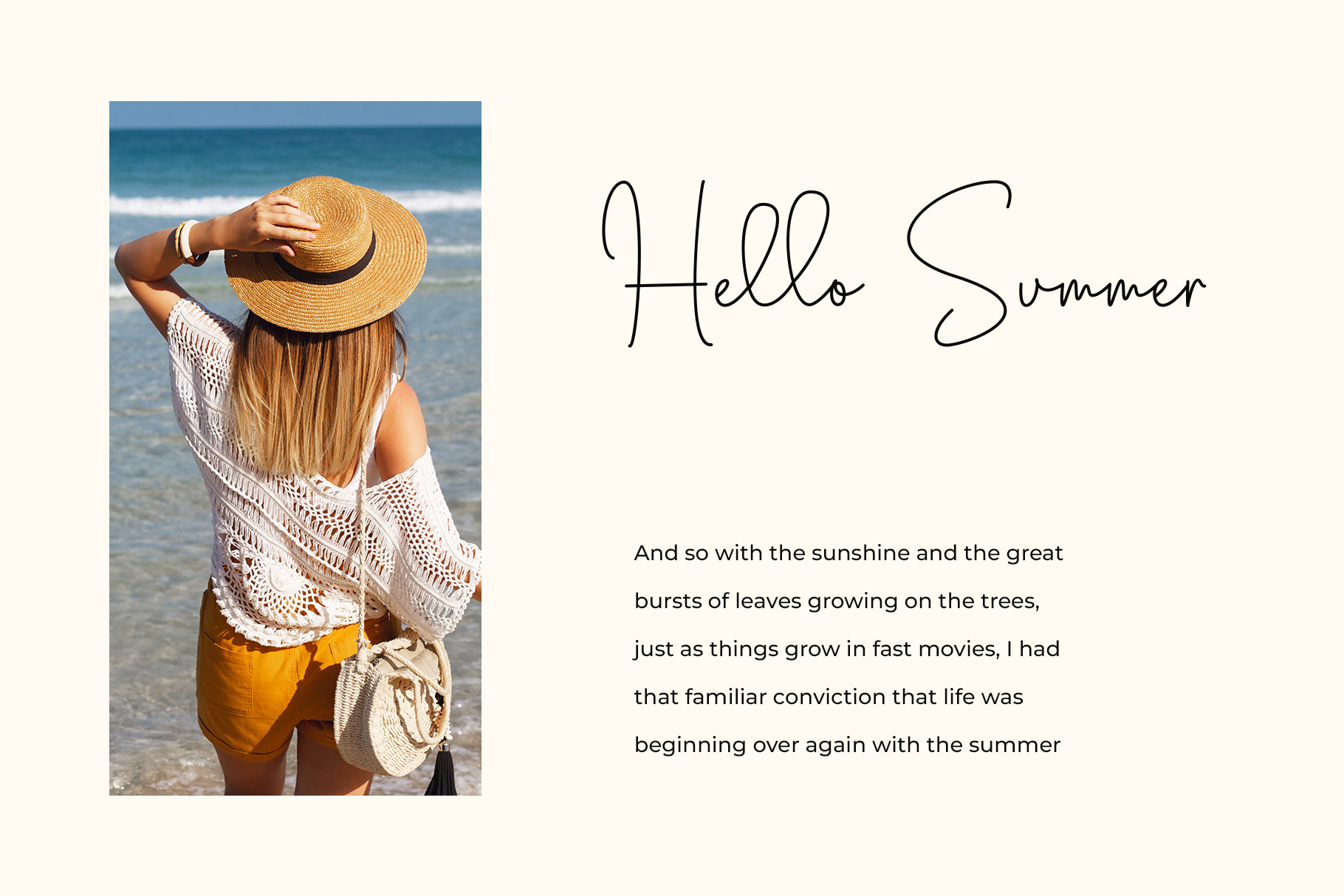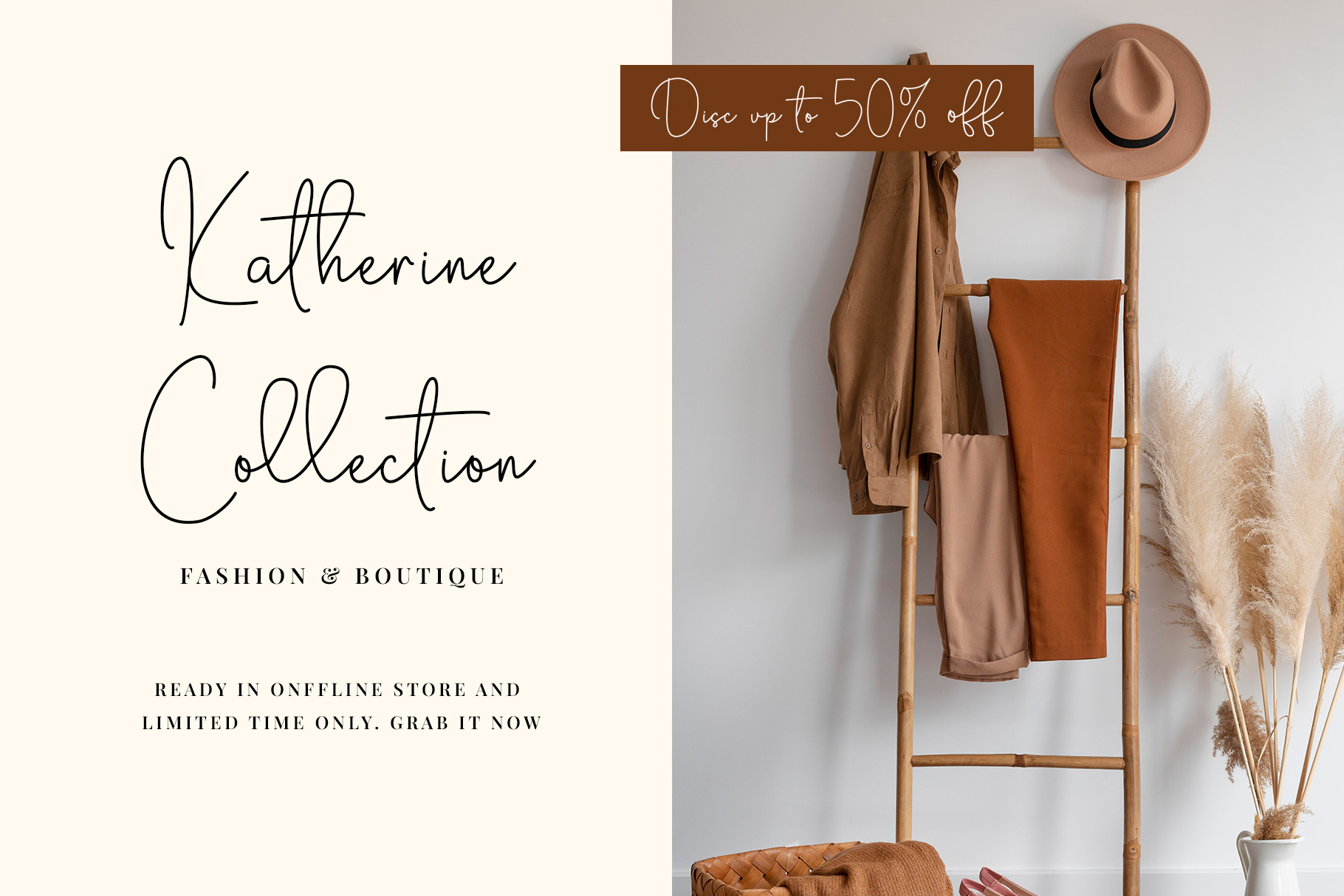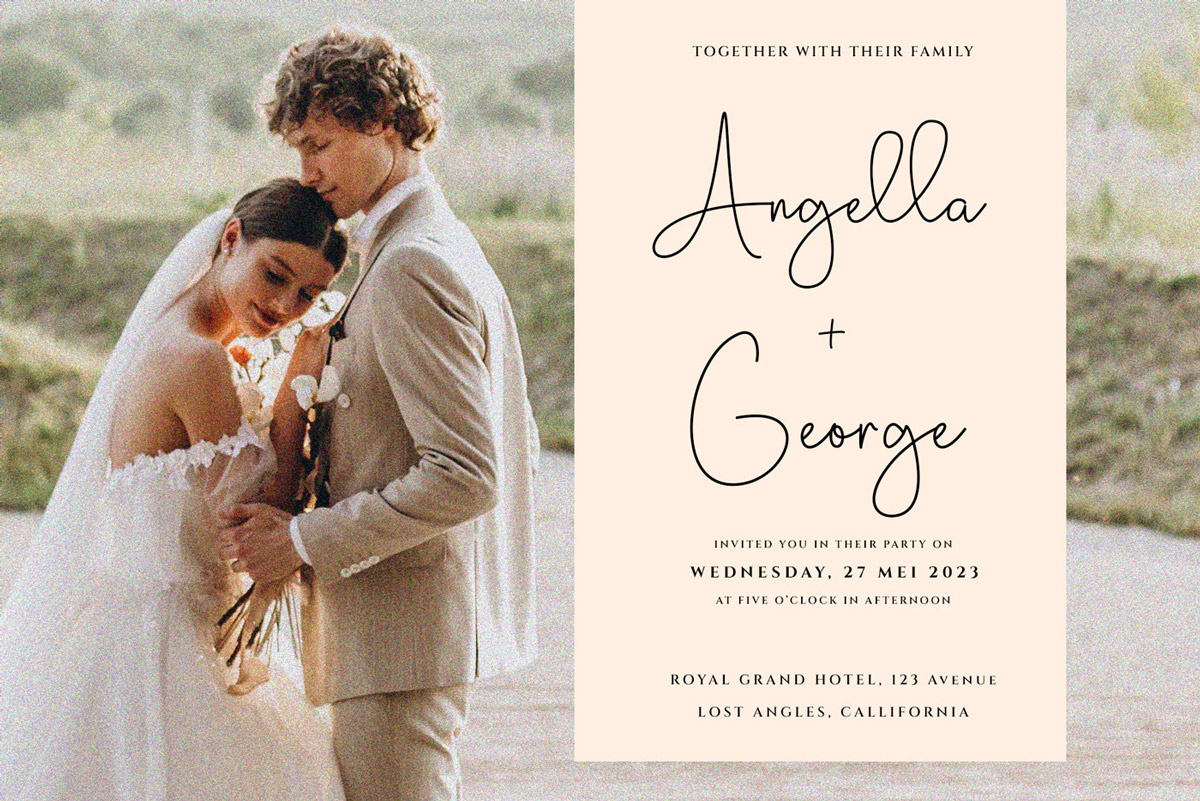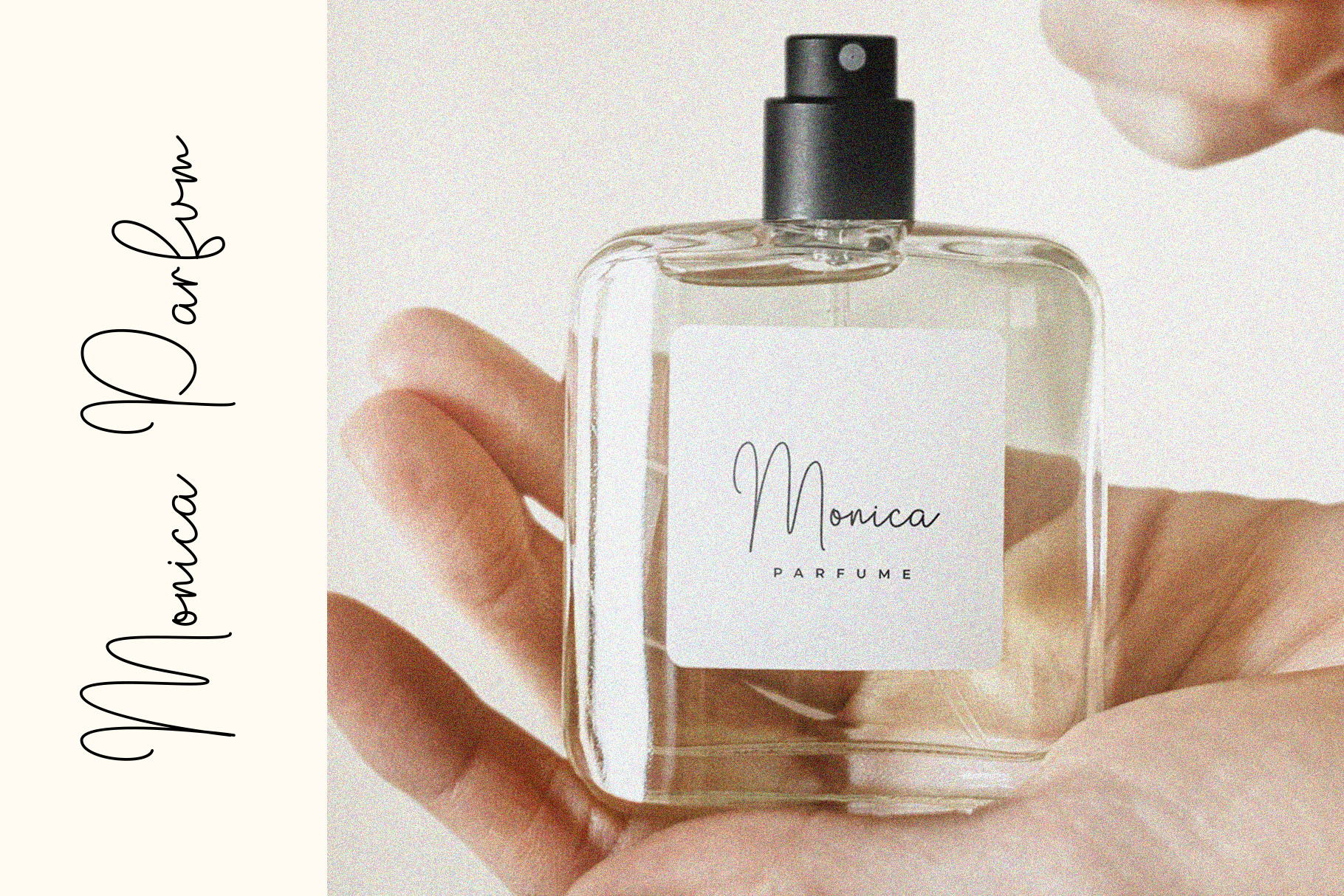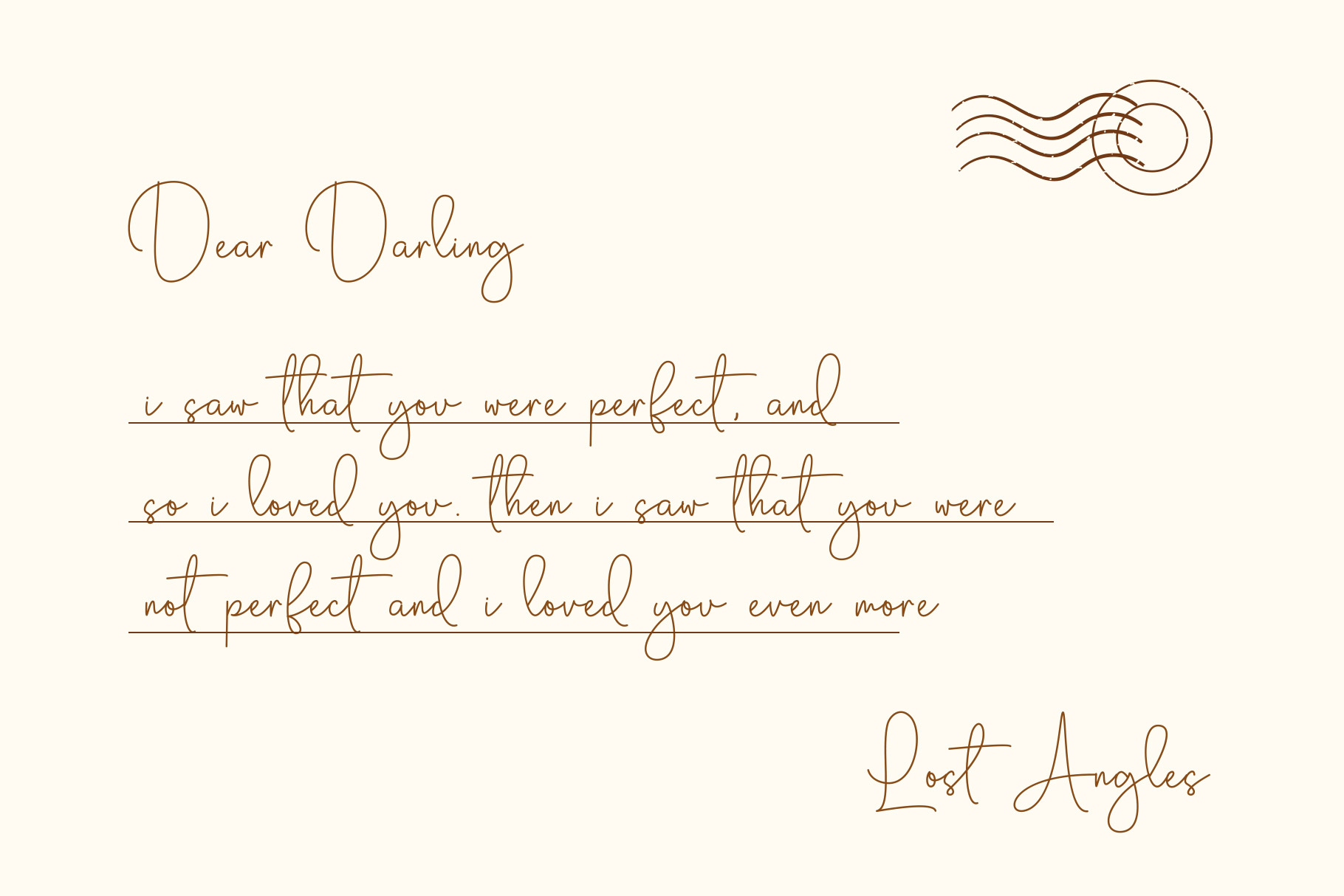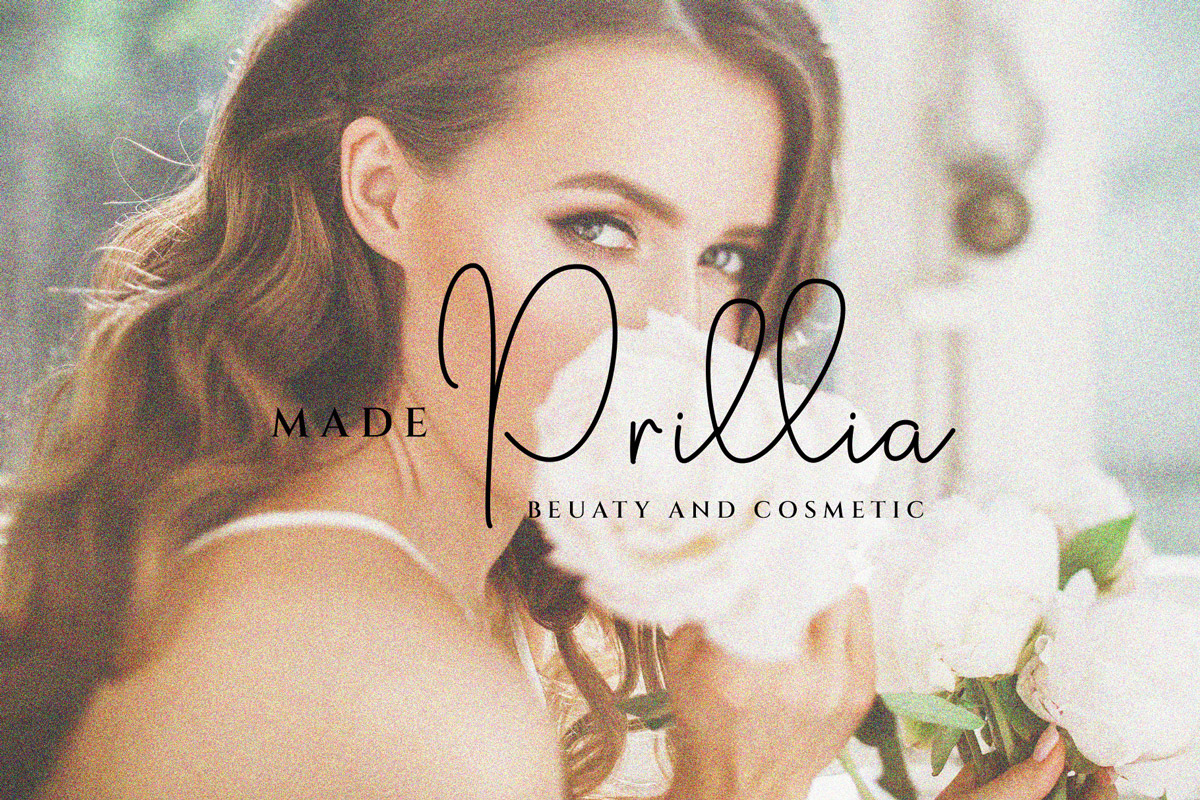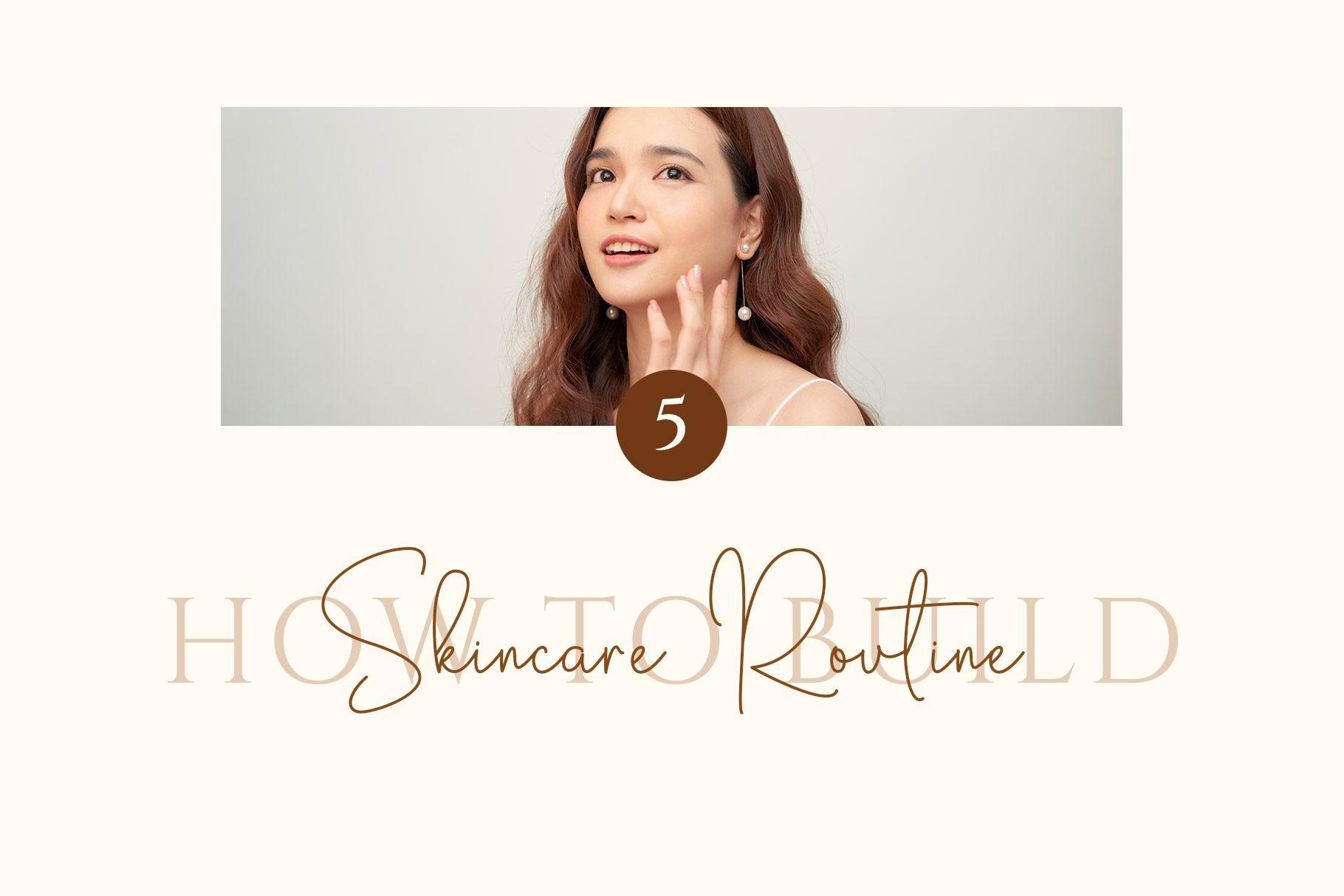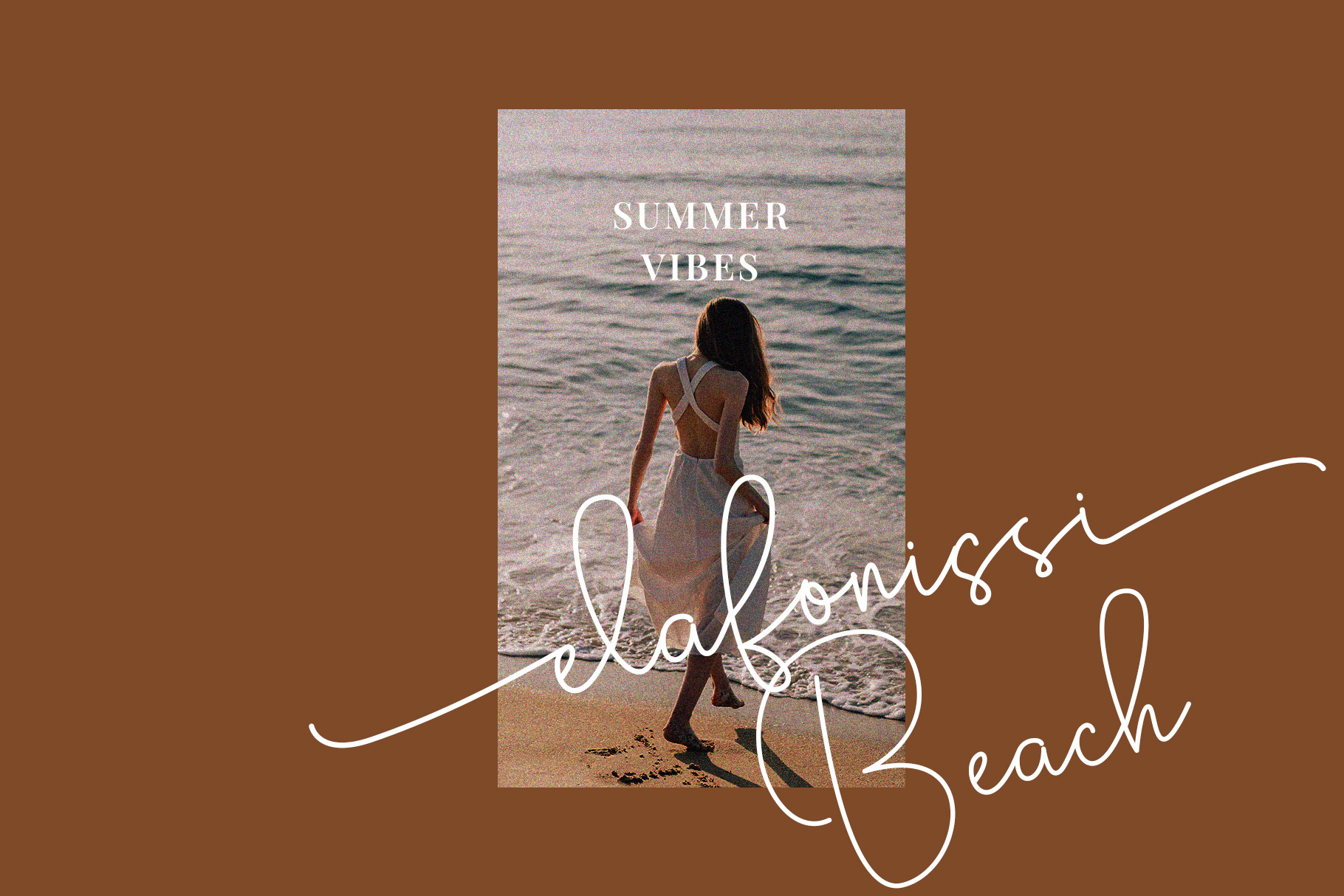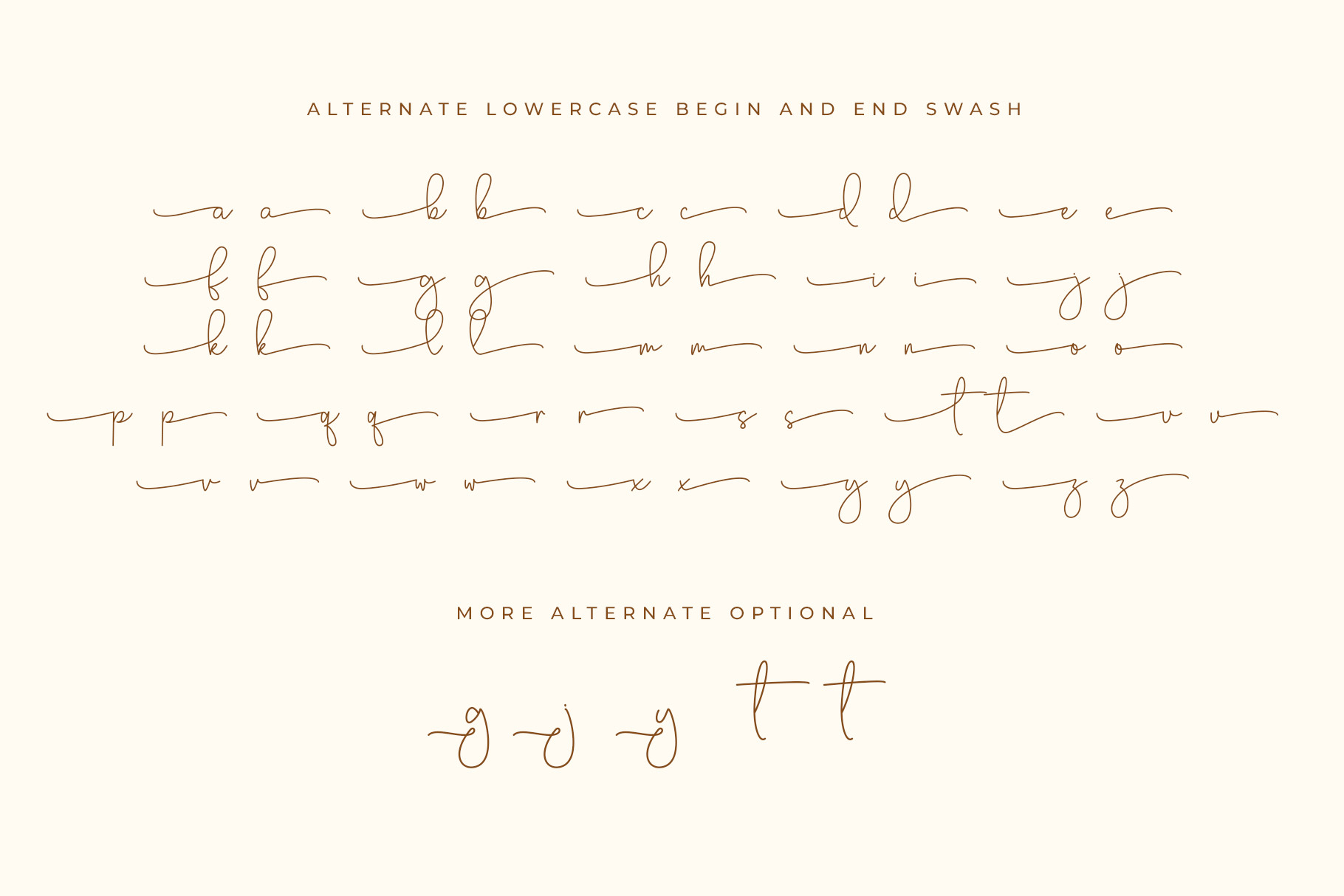
Bothaville Modern Handwritten Font
Bothaville –  modern monoline style which can be interpreted professional. we keep this font looks premium, modern, readable, stylish, feminine, catchy and easy to use.
Bothaville – is the great choice for watermark on photography, branding, wedding event, signature or signature logo design, quotes, album cover, magazine, business card and many other design project.
• Lowercase begin and end swash